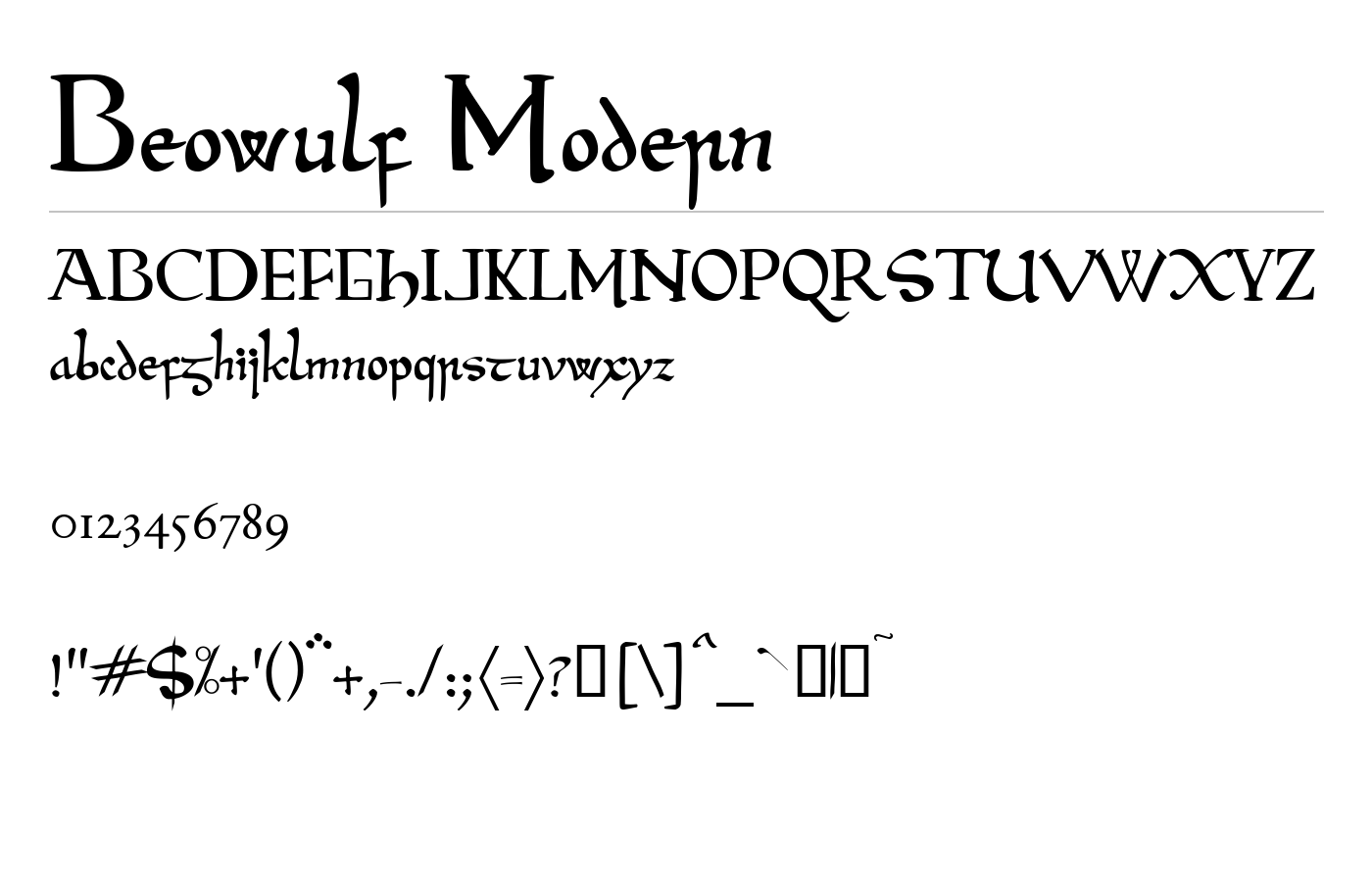
Beowulf Modern is a unique serif font with a distinctive medieval and calligraphic flair. It features irregular, stylized letterforms with sharp strokes and varied widths, giving it an artistic, handcrafted feel that works well for projects seeking a historic or fantasy-inspired look. This font is ideal for book covers, posters, or branding that aims to evoke a mysterious, classical, or storytelling atmosphere.
Beowulf Modern Font